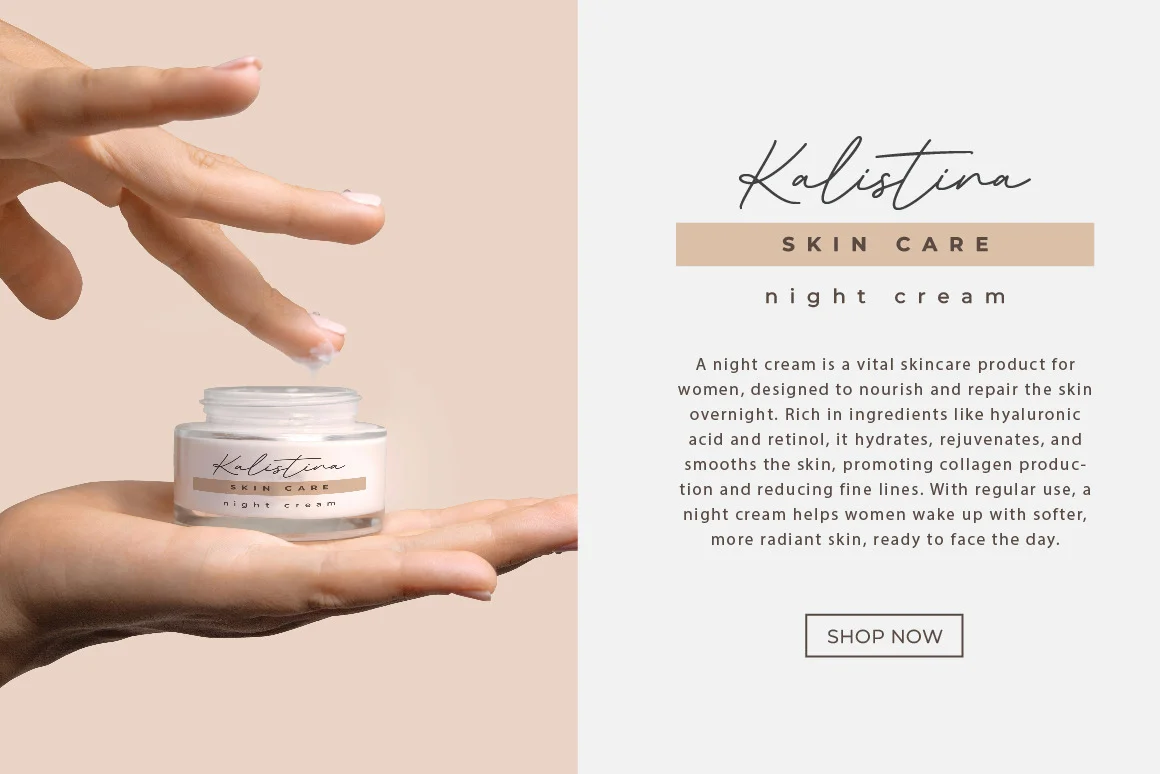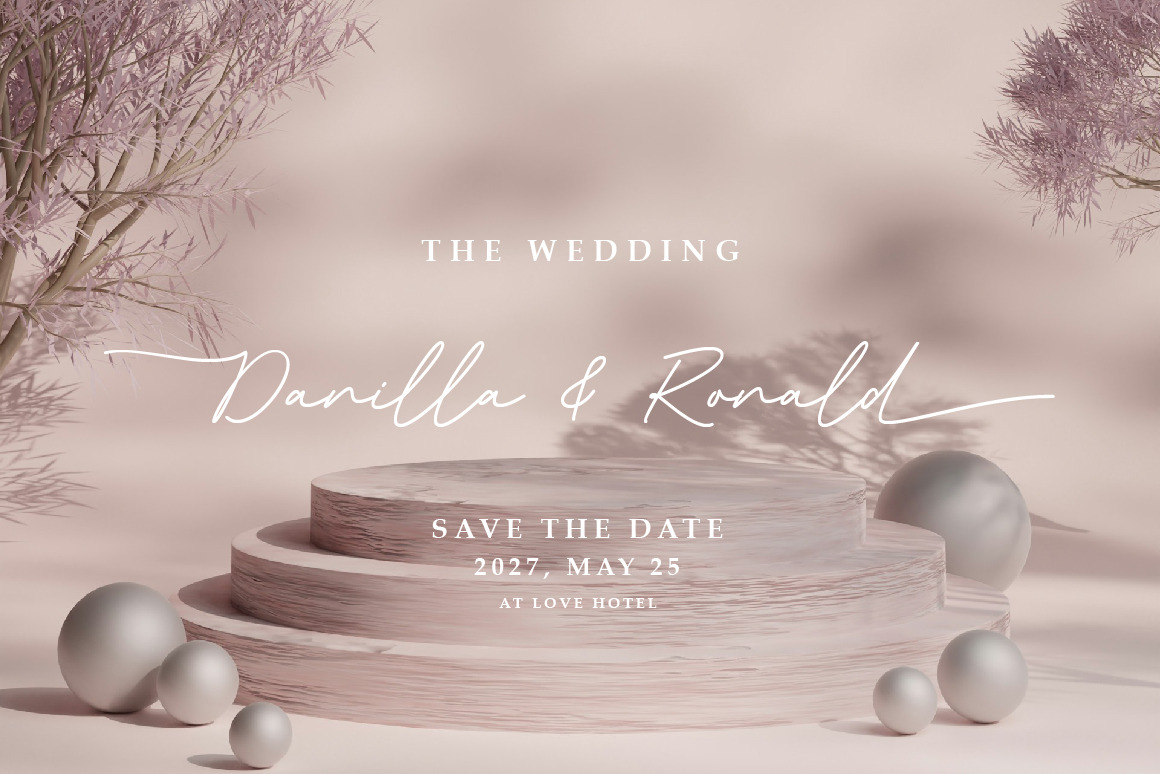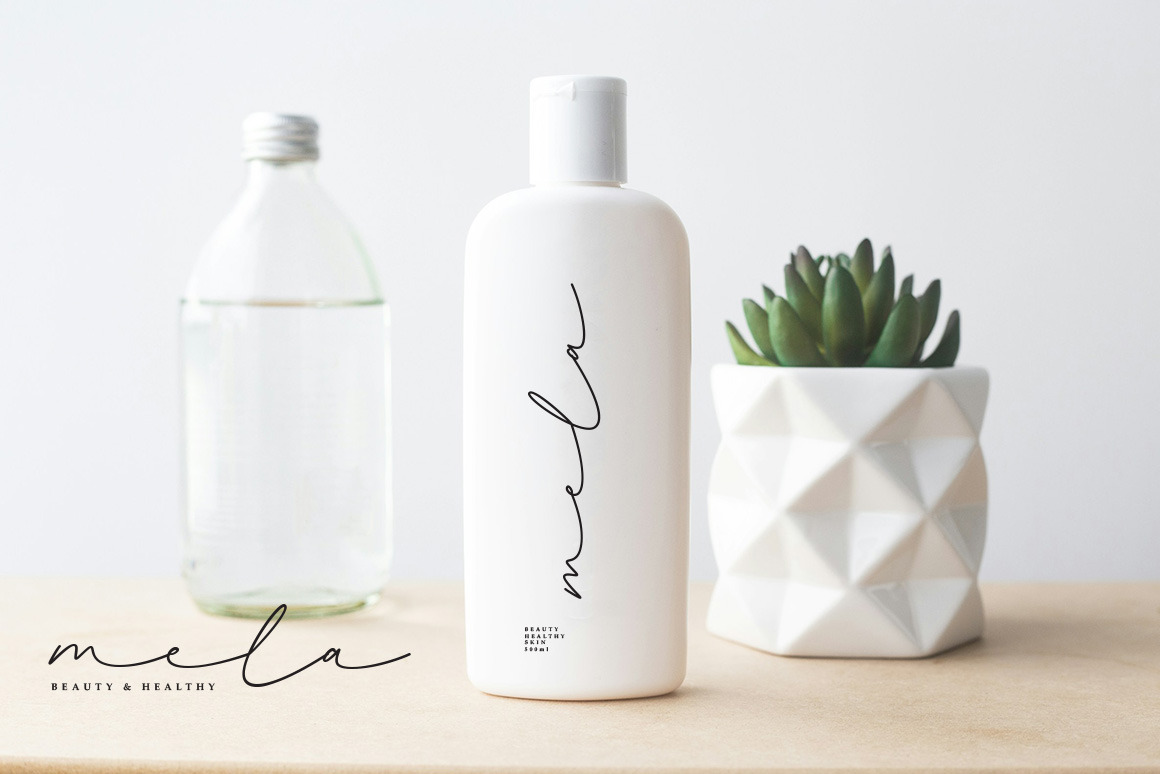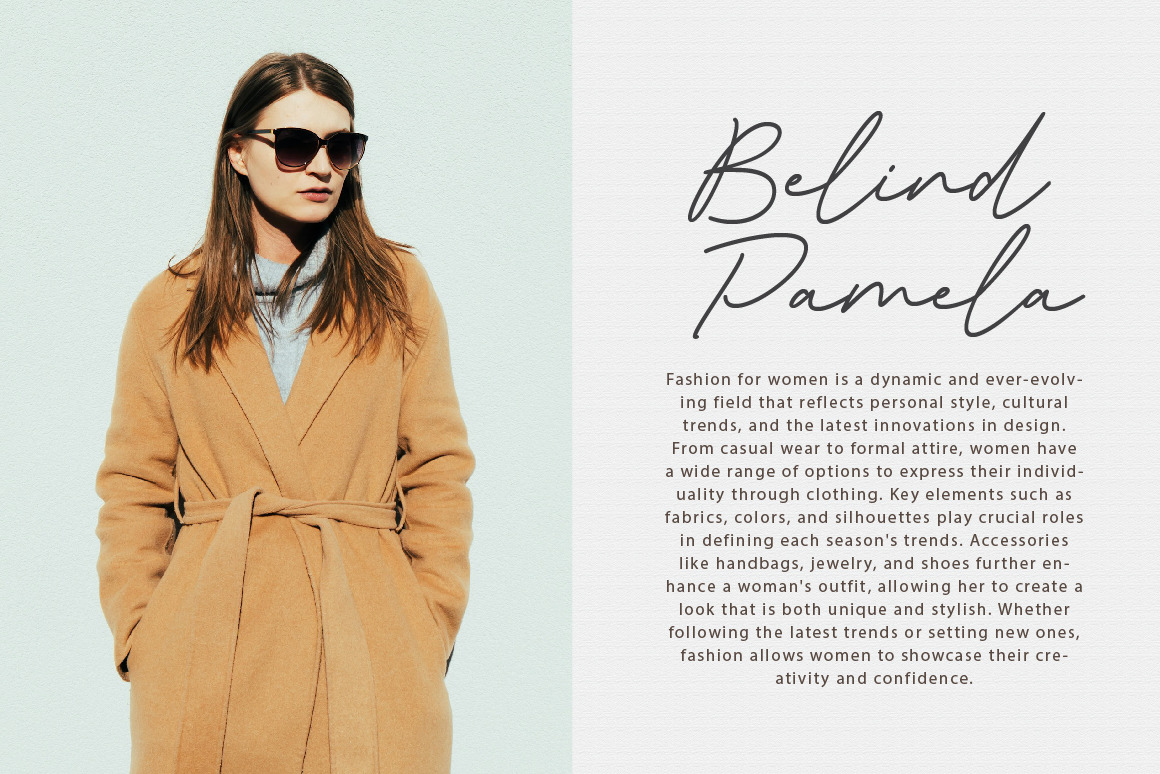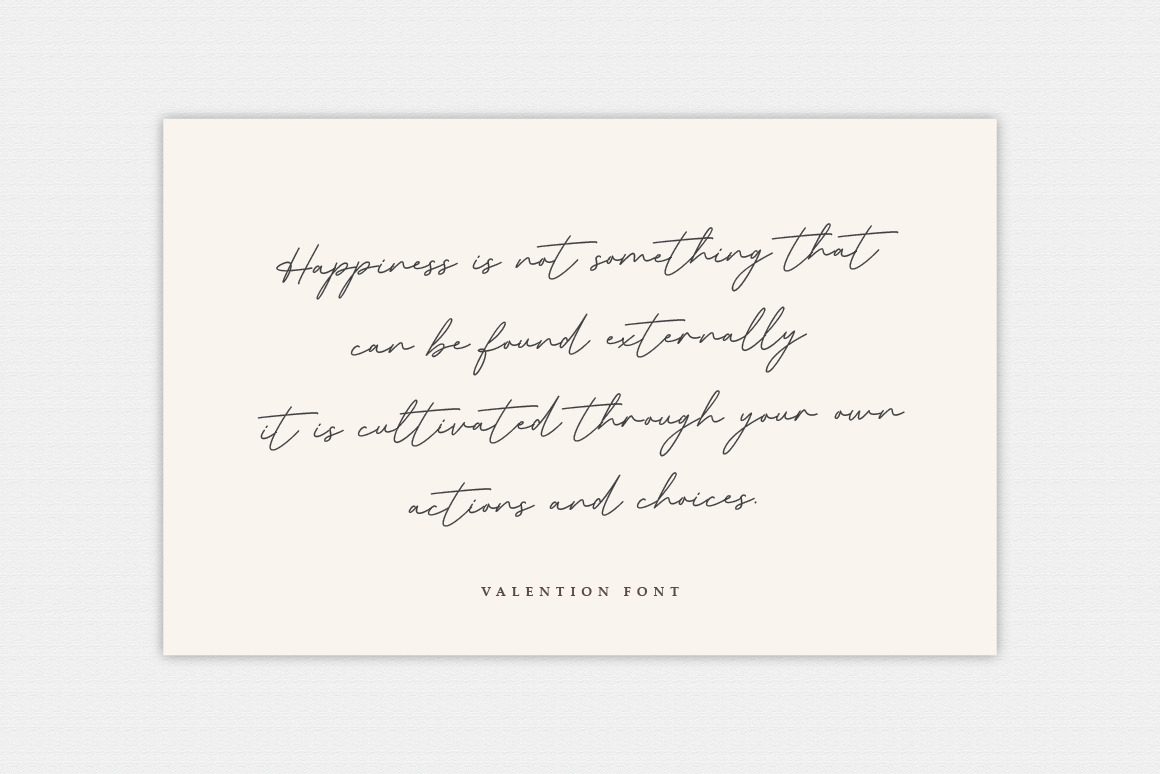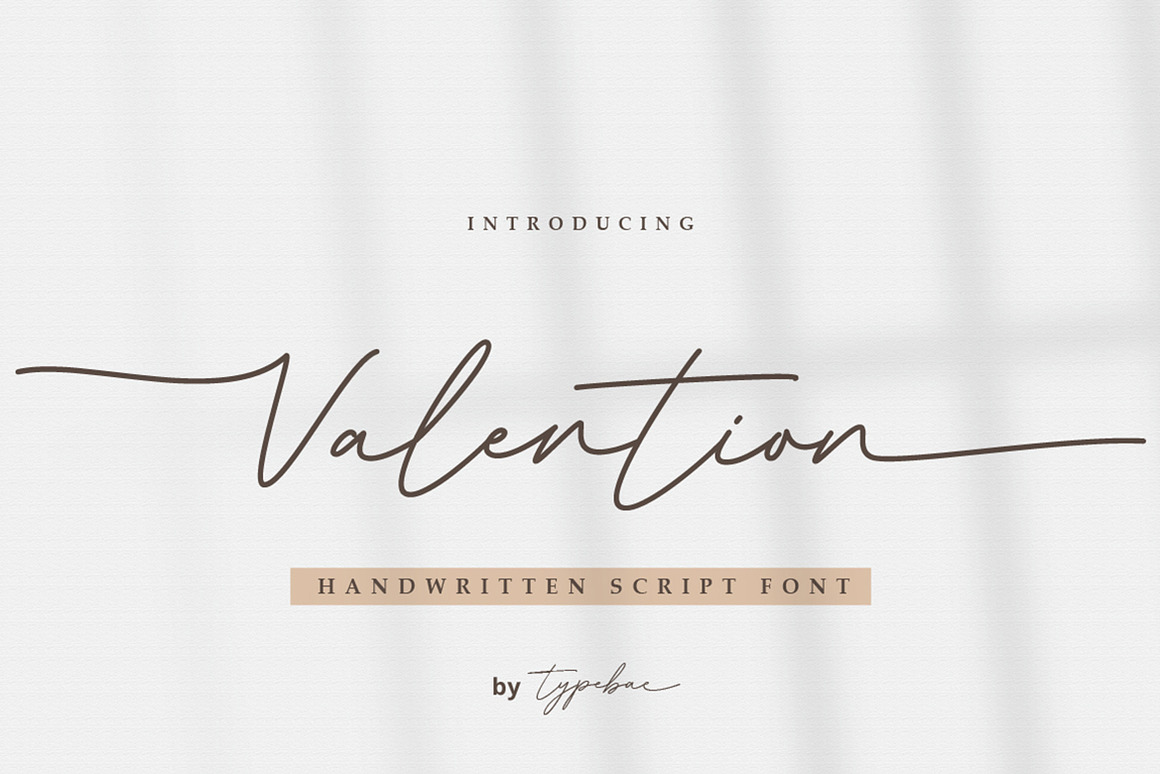
Valention - Chic Handwritten Script Font
A good typeface communicates tone before a single word is read. Valention - Chic Handwritten Script achieves this through refined proportions and careful stroke modulation. The typeface brings a warm, personal sensibility to a broad range of creative disciplines, with optical balance across all weights that holds up whether the work is print-first or screen-first.
In practice, Valention - Chic Handwritten Script proves particularly effective for advertising campaigns, brand identity systems, editorial layouts, teacher resources, children's books. Designers reaching for it find that the type decisions feel resolved rather than laboured — a useful quality when client timelines are tight.
Letter height variation is intentional: ascenders and descenders extend slightly beyond standard cap height to reproduce the rhythm of genuine handwriting. Connecting strokes are optically weighted so they appear continuous across words without overprinting.
The range of applications extends to logo design, recipe cards, environmental graphics, poster creation. That breadth is deliberate: the proportions and spacing were stress-tested across a wide range of mock briefs before the typeface was finalised.
UX designers establishing typographic systems for digital products find Valention - Chic Handwritten Script a reliable choice for projects that demand both personality and restraint. The design avoids the self-conscious quirkiness that dates quickly, settling instead for considered distinctiveness that holds up over time.